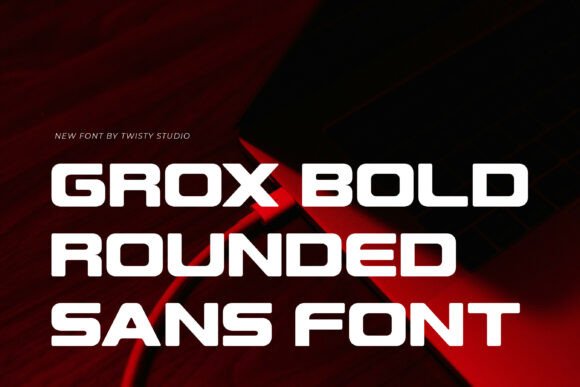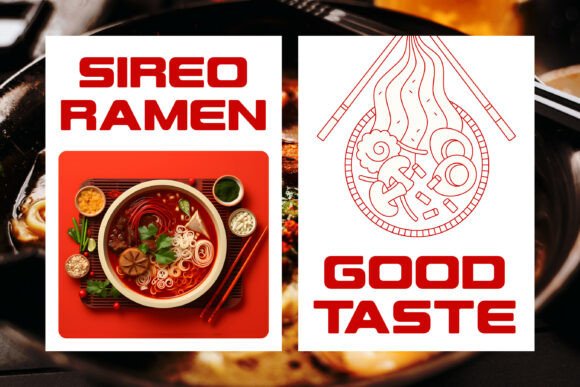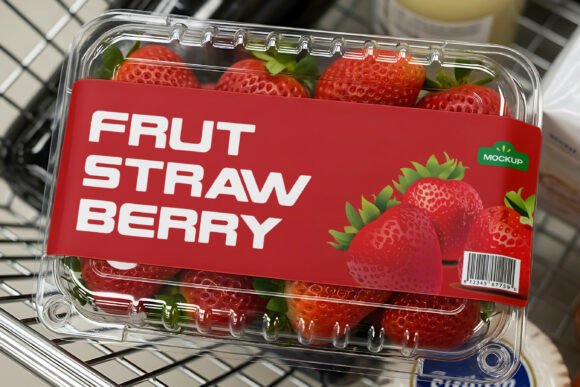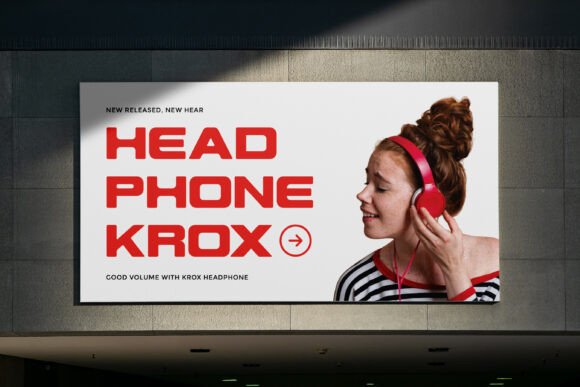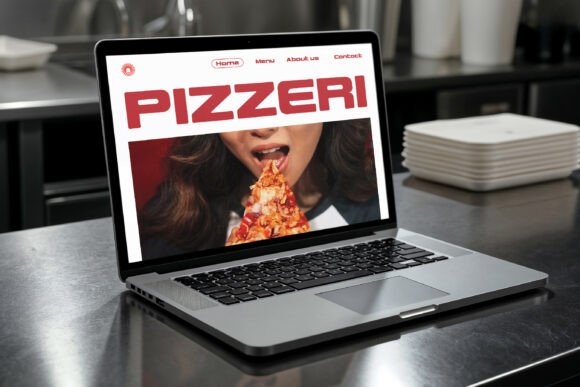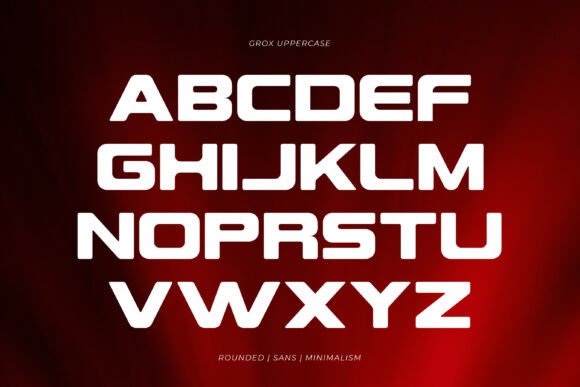
Introducing Grox Font: The Perfect Blend of Strength and Simplicity
In the world of typography, fonts play a crucial role in conveying messages, evoking emotions, and creating lasting impressions. For designers and crafters, finding the right font can be a daunting task, especially when it comes to balancing visual impact with aesthetic appeal. This is where Grox Font comes in – a rounded bold sans font that seamlessly combines strong visual impact with a clean, minimalist character.
The Design Philosophy Behind Grox
Grox is built on a foundation of thick strokes and smooth curves, delivering a bold and confident presence that commands attention. At the same time, its rounded structure adds a touch of approachability, making it perfect for designs that require a friendly and inviting tone. The weight of the font gives it power and authority, ensuring that your message is conveyed with clarity and conviction.
Key Features of Grox Font
- Rounded Bold Sans Design: Grox boasts a rounded bold sans design that strikes the perfect balance between strength and simplicity.
- Thick Strokes and Smooth Curves: The font’s thick strokes and smooth curves create a visually appealing contrast that adds depth and character to your designs.
- Clean and Minimalist Character: Grox’s clean and minimalist character ensures that your message is conveyed clearly, without any distractions or clutter.
- Approachable and Authoritative: The font’s rounded structure and bold weight make it both approachable and authoritative, perfect for designs that require a friendly yet confident tone.
What Makes Grox Stand Out?
Grox stands out in the world of typography due to its unique blend of strength and simplicity. Its clear and solid appearance makes it perfect for a wide range of design applications, from branding and advertising to packaging and digital media. Unlike other fonts that may feel heavy or overwhelming, Grox strikes the perfect balance, ensuring that your design looks polished and professional.
Use Cases for Grox Font
Grox is a versatile font that can be used in a variety of design applications, including:
- Branding and Logo Design: Grox’s bold and confident presence makes it perfect for branding and logo design, helping you create a lasting impression on your target audience.
- Advertising and Marketing: The font’s clean and minimalist character ensures that your message is conveyed clearly, making it ideal for advertising and marketing campaigns.
- Packaging Design: Grox’s approachable and authoritative tone makes it perfect for packaging design, helping you create a strong and recognizable brand identity.
- Digital Media: The font’s versatility and legibility make it suitable for digital media, including websites, social media, and mobile apps.
Tips for Using Grox Font Effectively
To get the most out of Grox, here are some tips to keep in mind:
- Pair it with Other Fonts: Grox can be paired with other fonts to create a unique and visually appealing contrast.
- Use it for Headings and Titles: The font’s bold and confident presence makes it perfect for headings and titles, helping you create a strong visual hierarchy.
- Experiment with Colors: Grox looks great in a variety of colors, so don’t be afraid to experiment and find the perfect hue for your design.
Grox Font is a powerful and versatile font that offers a unique blend of strength and simplicity. Its rounded bold sans design, thick strokes, and smooth curves make it perfect for a wide range of design applications, from branding and advertising to packaging and digital media. Whether you’re a designer or crafter, Grox is an excellent choice for anyone looking to create a lasting impression with their typography.